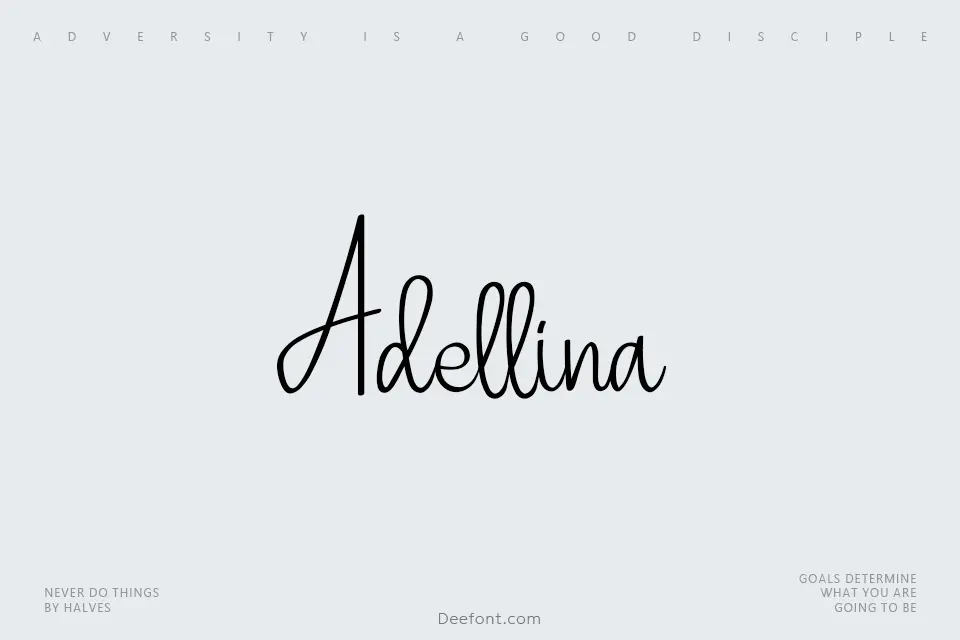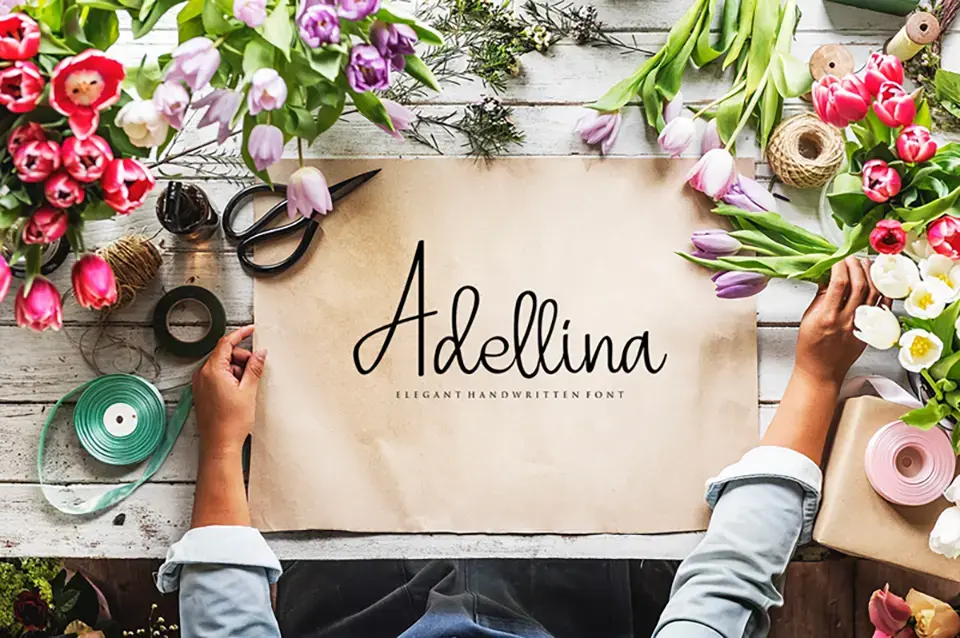
Adellina Font
Adellina Font is a graceful handwritten script crafted by Haksen Studio. With its fluid strokes and natural rhythm, this design captures the essence of modern signature calligraphy. It shines in projects requiring a sophisticated touch, such as wedding stationery, boutique branding, and photography watermarks. The varied line weights create a dynamic, authentic feel for stylish text displays.